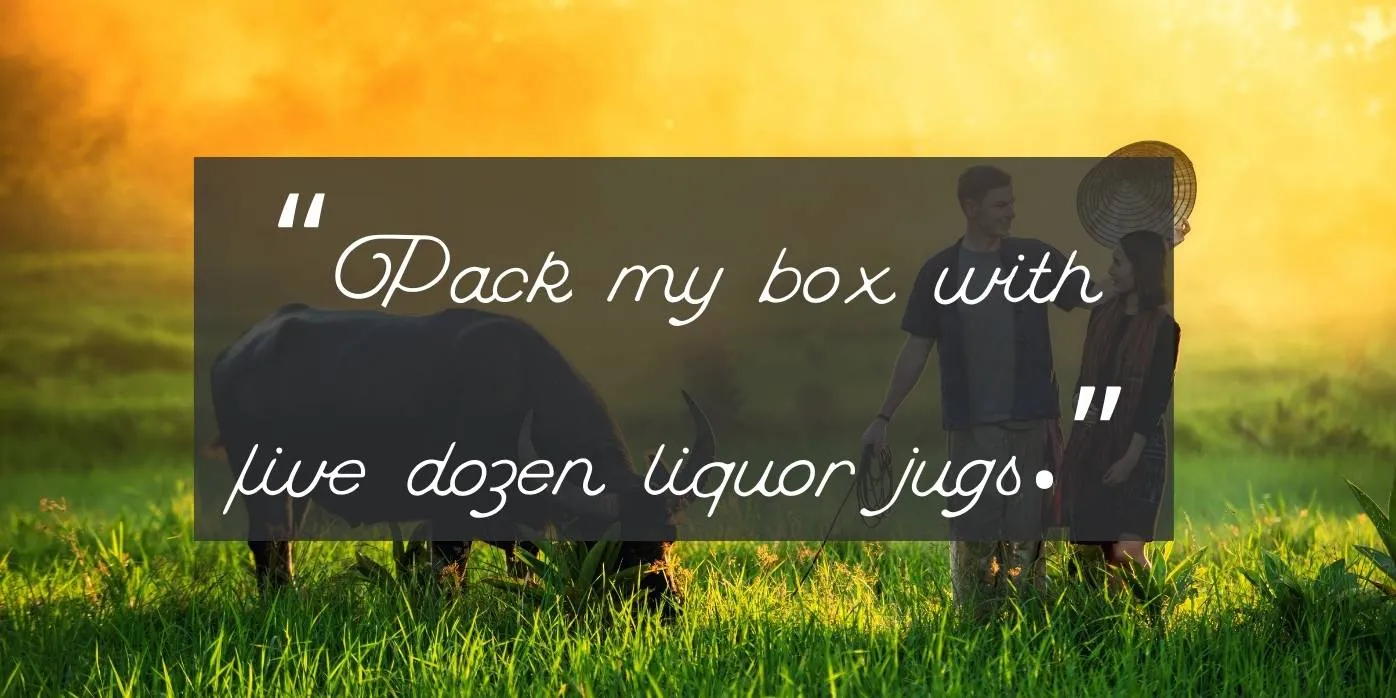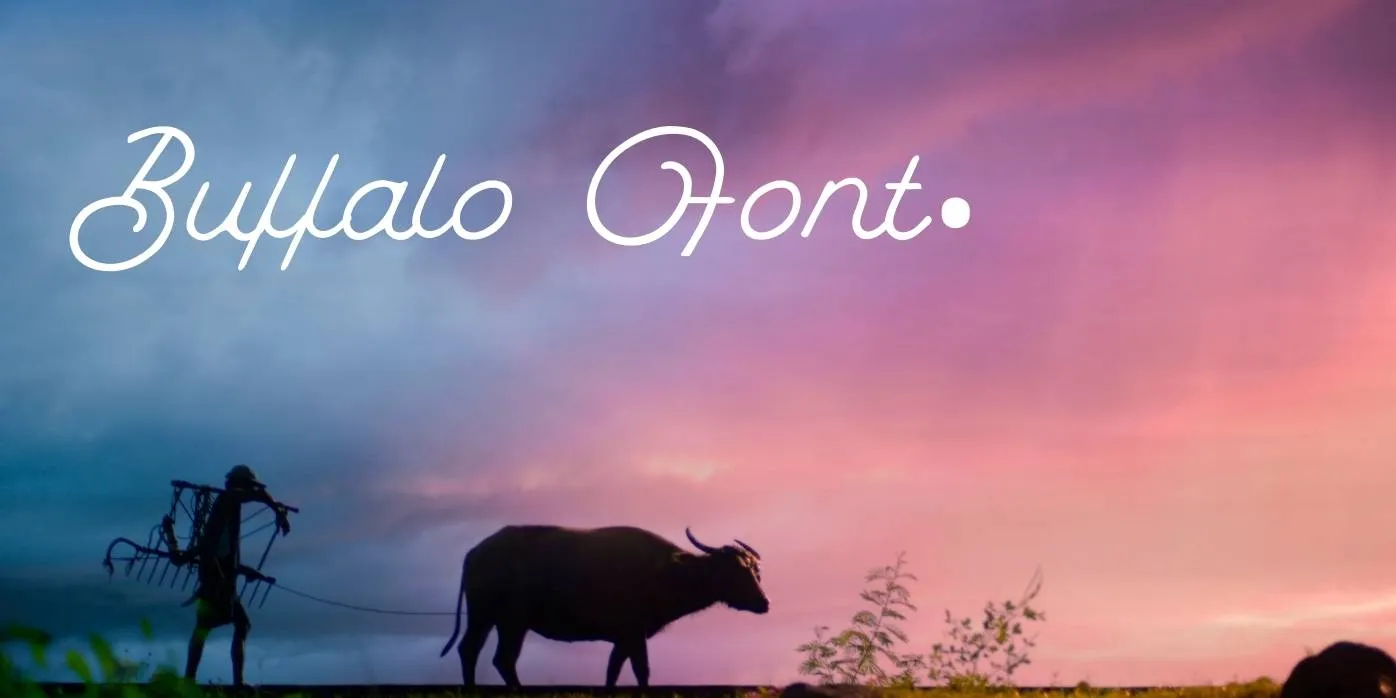
Buffalo Font
Here, we are consulting about staggering and odd one font family that is known by name Buffalo Font. It is odd and strange from other typefaces and belongs to the loopy Script font family. This fascinating font family was designed by an intelligent and brilliant designer  Jeremy Vessey. In the year this marvelous font was released first-time by Hustle Supply Co Foundry.
This attractive typeface is available in one famous and unique style. Because of this outstanding style, this font family supported a great number of international languages. All of your designs get a soft and smooth look when you will put this awesome font in your projects. Many characters are available that increase overall performance these are Uppercase, Lowercase, icons, and many others.
Optima font is most similar to this marvelous font that helps in the same manner for various designs. Same as the most famous Helvetica Font this font will catch everyone’s attention towards itself. If you want to achieve success in your plans and functions then you surely use this font. This classy and eye-catching font is also perfect and suitable for other software such as Canva.